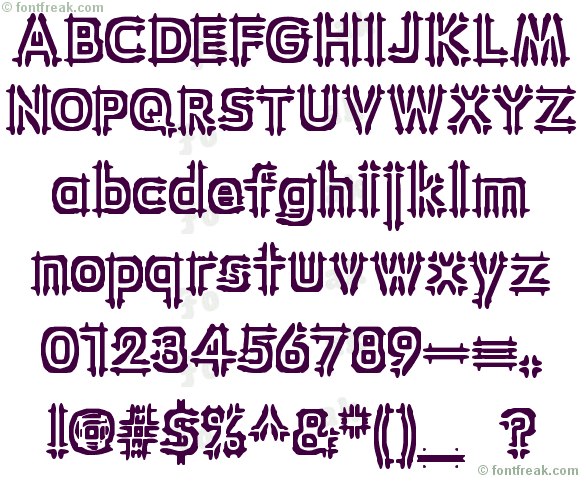
Wincing -BRK-
The Wincing font by Ænigma Fonts is a captivating display typeface that stands out with its distinctive character. This freeware font features a unique, whimsical style that combines elements of both decorative and playful type design. The visual characteristics of Wincing include a bold stroke weight with varying contrast, giving the letters a lively, dynamic appearance. The spacing is generous, allowing for clarity and ease of reading, while the slightly irregular shapes add an element of charm and creativity.
Wincing is ideal for various creative applications. It works exceptionally well for eye-catching headlines in magazine layouts, playful branding for children's products, and quirky restaurant menus that aim to captivate diners. Additionally, it is a perfect choice for event posters, where its distinctive style can draw attention and intrigue. Graphic designers and content creators will find this font particularly appealing due to its versatility and unique personality, making it a standout option in any project.
Targeting a broad audience, including small business owners and creative professionals, Wincing offers a fresh alternative to more traditional typefaces. The font's playful nature makes it suitable for projects that require a touch of fun and imagination, appealing to those looking to make a statement without compromising on readability.
What truly sets the Wincing font apart is its ability to evoke emotion and curiosity. Its whimsical design captures the essence of creativity, making it an excellent choice for anyone looking to add a unique flair to their work. With the Wincing font free download available, you can easily incorporate this exceptional typeface into your next design project and let your creativity run wild.